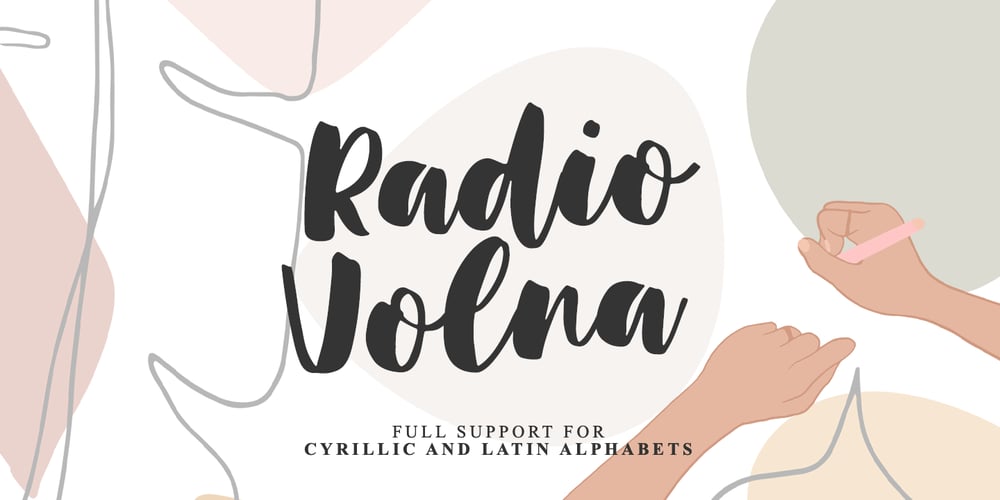
Radio Volna Font Family was designed by Dmitrii Chirkov and published by Supfonts. Radio Volna contains 1 styles and family package options. This is my new font, a classic calligraphic script, made with a thick brush. The font is super versatile and suitable for any project. You want to post on instagram? The menu in the cafe? A banner or sign on the website? It’s easy!Classic never gets old, your design will always look fresh.And one more thing, this font fully supports Cyrillic! Oh Yes, this is cool news for Russian-speaking designers. Fresh font in the piggy Bank, and satisfied customers.—Здравствуйте, друзья. Это мой новый шрифт, классическая каллиграфия толстой кистью. Шрифт супер универсальный и подойдёт для любых проектов. Хочешь пост в инстаграм? Меню в кафе? Баннер или надпись на сайт? ЛЕГКОКлассика никогда не стареет, ваш дизайн будет выглядеть свежо всегдаИ еще одна фишка, этот шрифт полностью поддерживает кириллицу! О да, это крутая новость для русскоязычных дизайнеров. Свежий шрифт в копилку, и довольные клиенты—Test it out below to see how it could look for your next project!Includes: Ful Cyrillic support Latin language support Uppercase and lowercase Numbers and punctuation Ligatures Check out my blog:https://www.instagram.com/zloillevpinterest.com/dmitriychirkov7